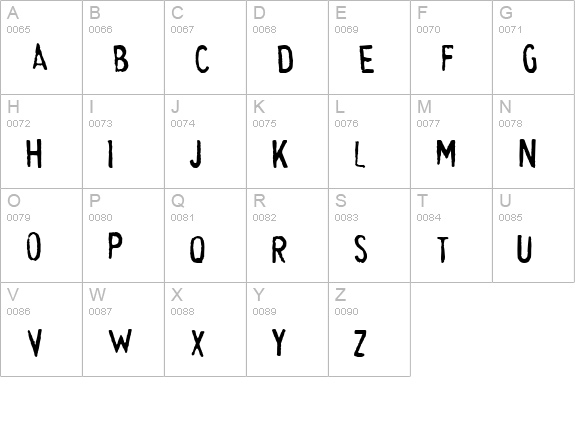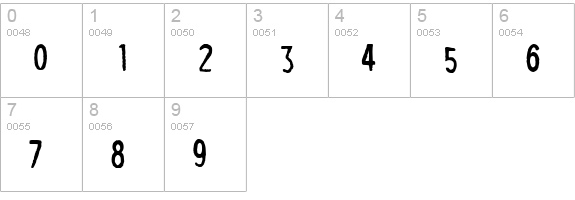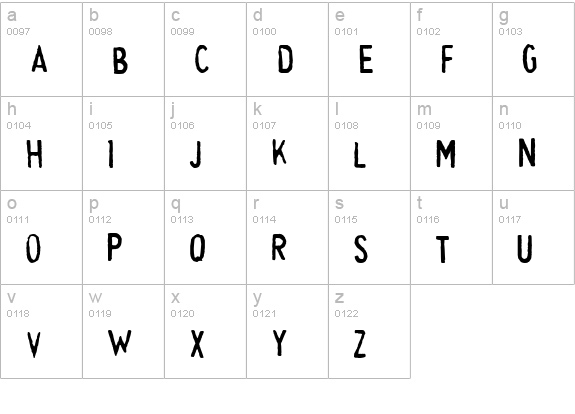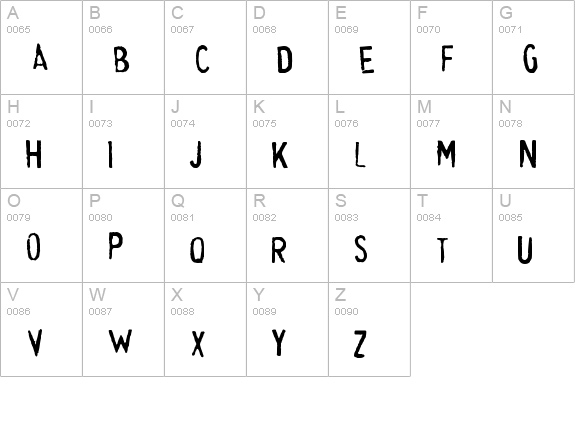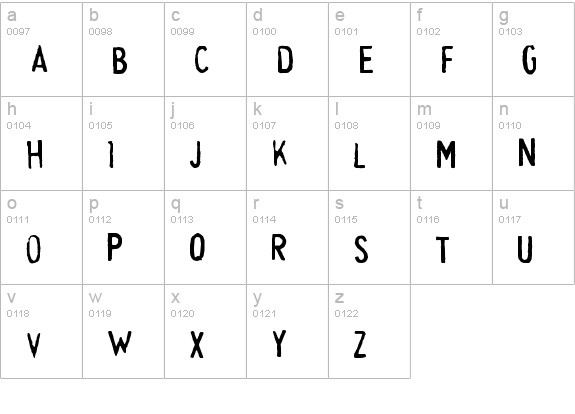
Cheapskate Fill font is a whimsical and playful typeface that adds a touch of fun to any project. With its bold and quirky design, this font is perfect for creating eye-catching headlines, posters, and social media graphics. The unique fill style gives a dynamic and energetic feel to your text, making it stand out from the crowd. What's even better is that Cheapskate Fill font is available for free download at FontsMarket.com. You can easily access this font and use it in your personal or commercial projects without any cost. So why wait? Add a touch of creativity to your designs with Cheapskate Fill font today!